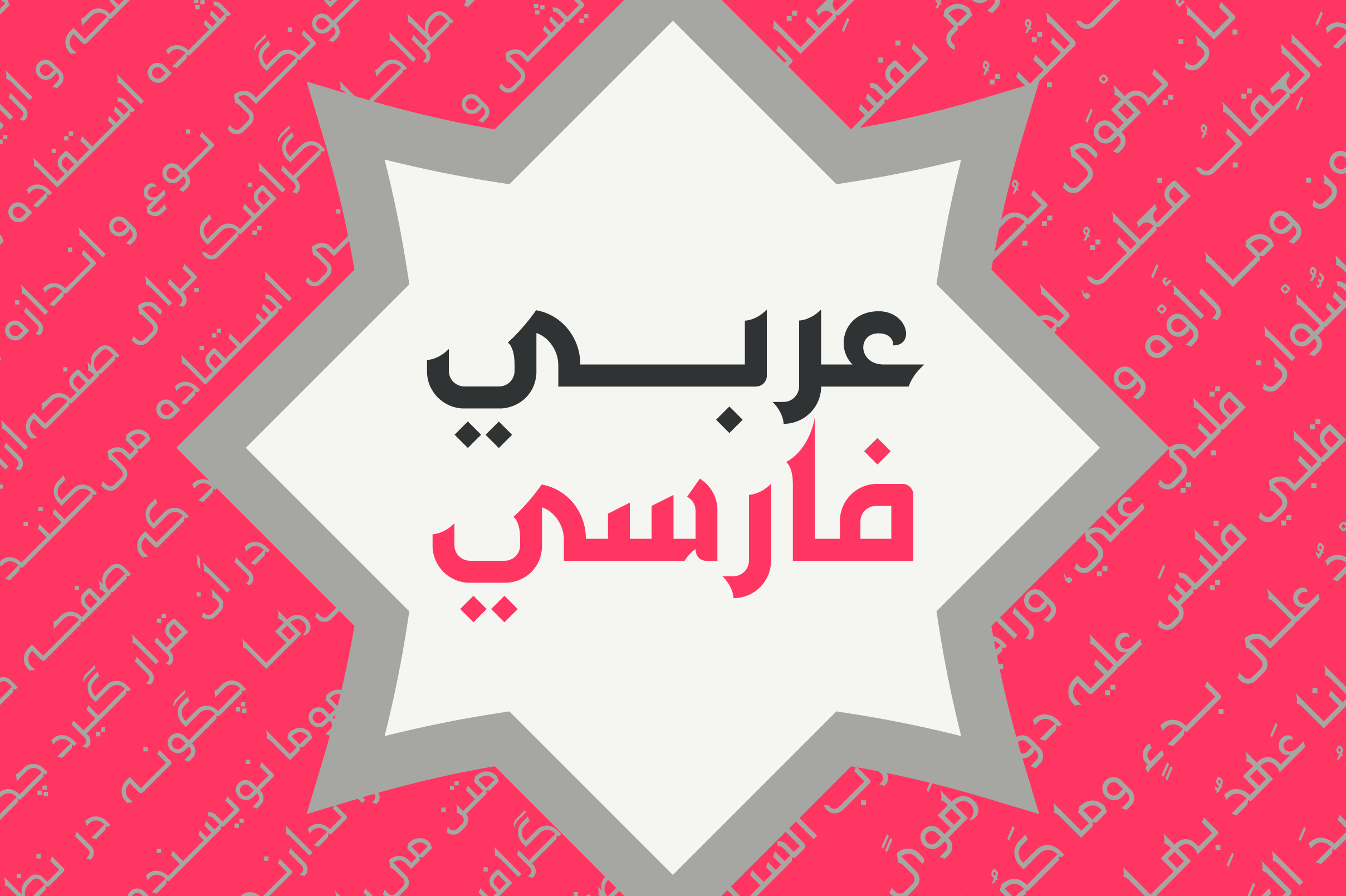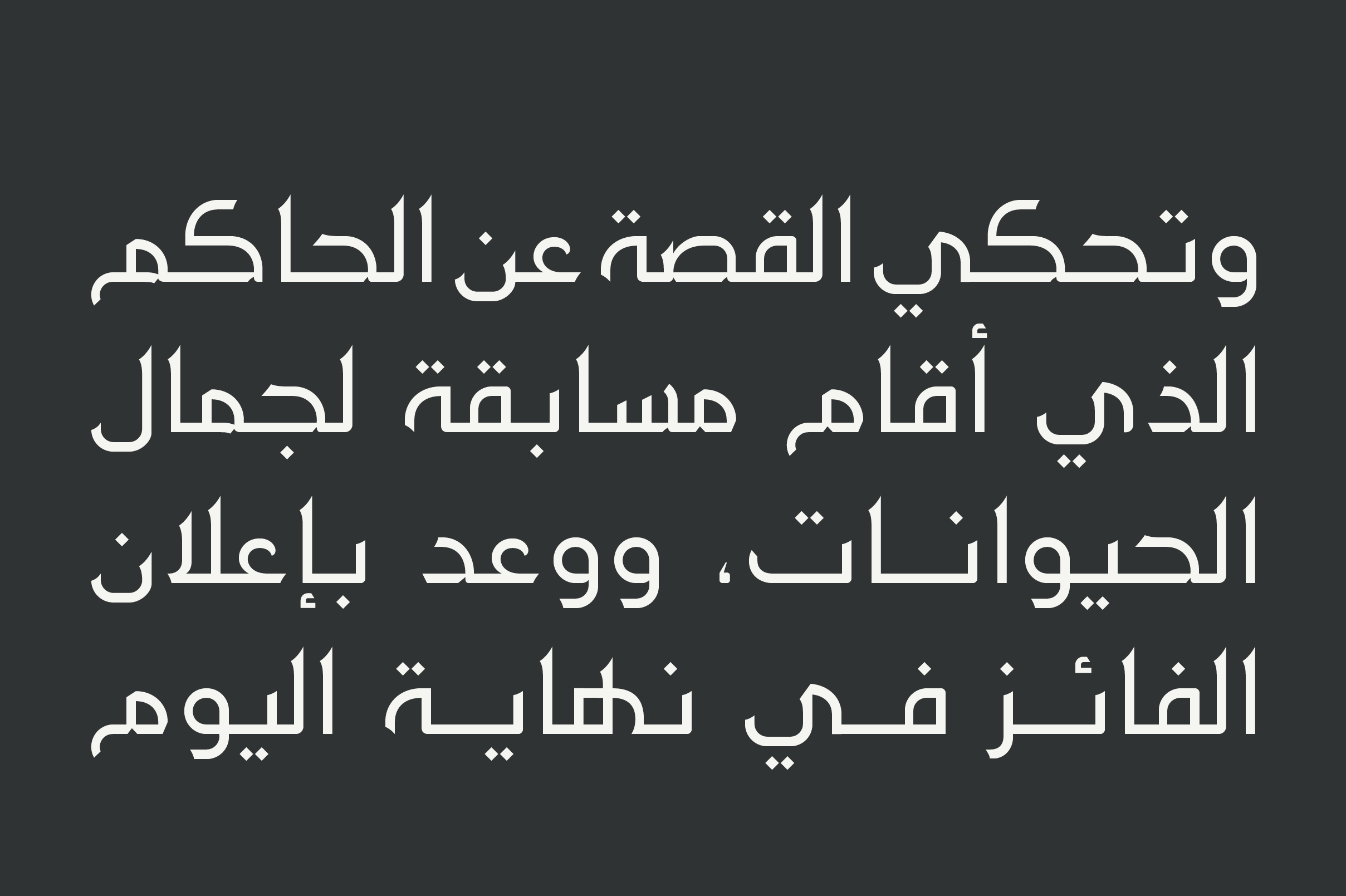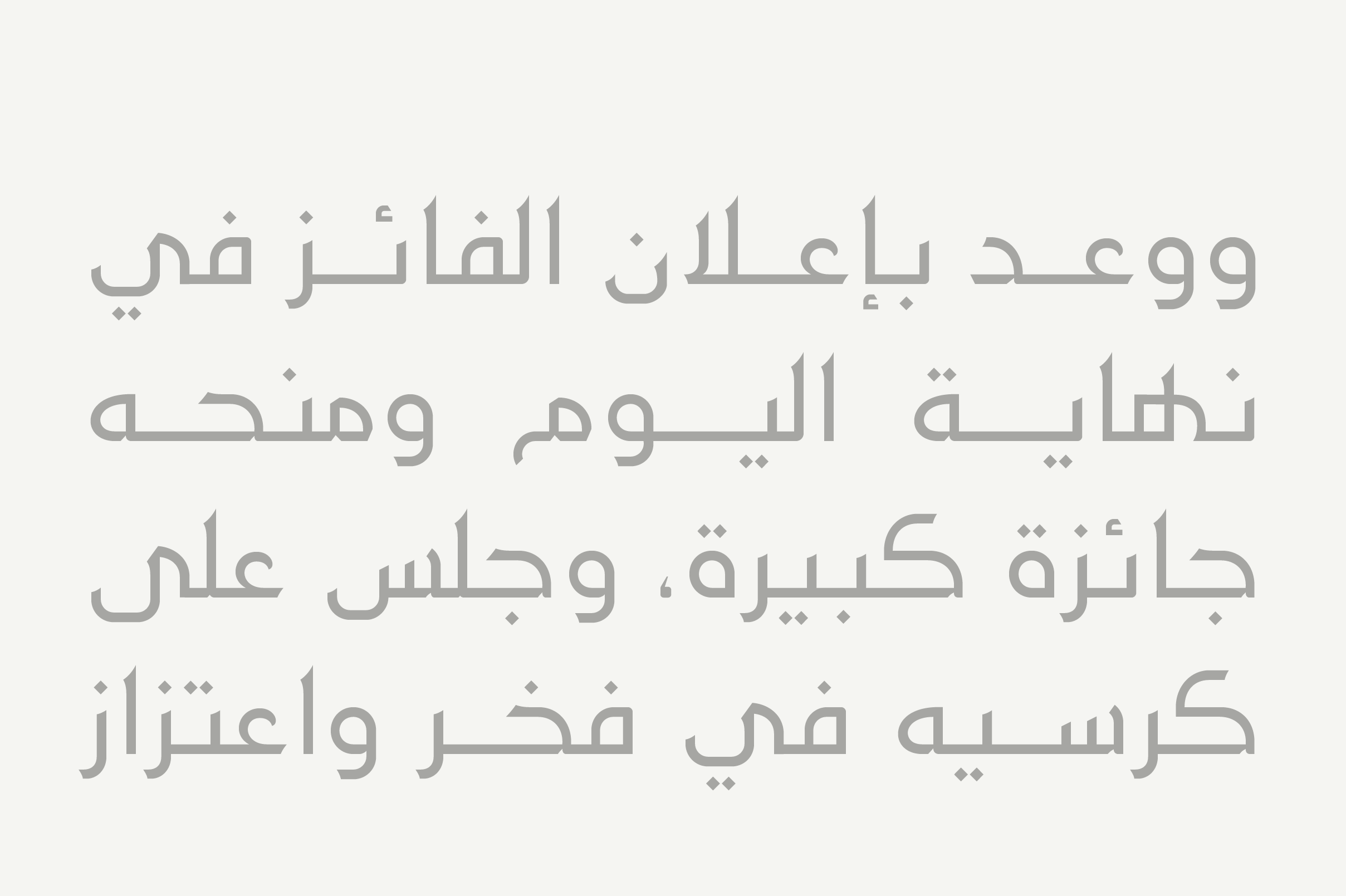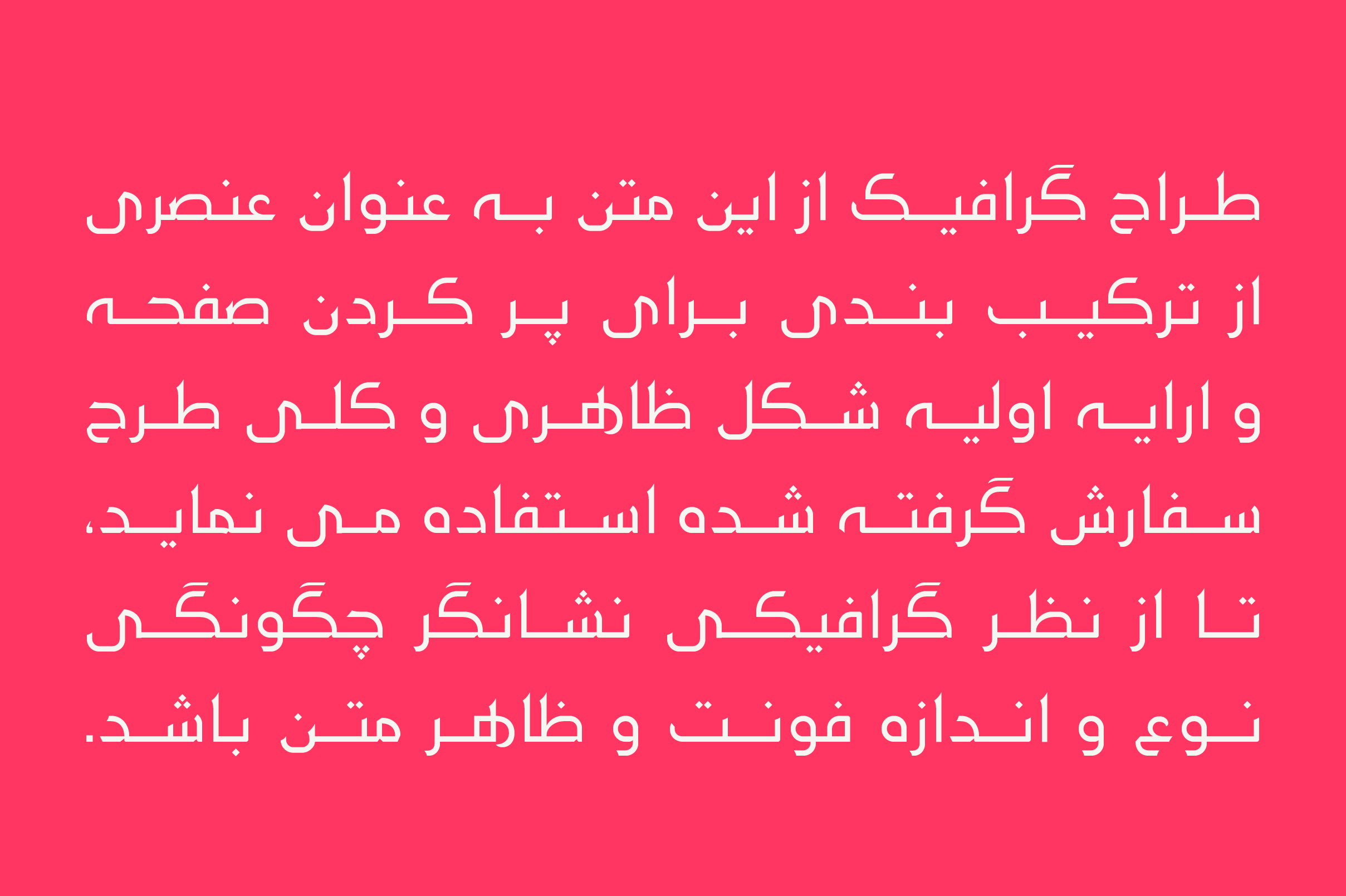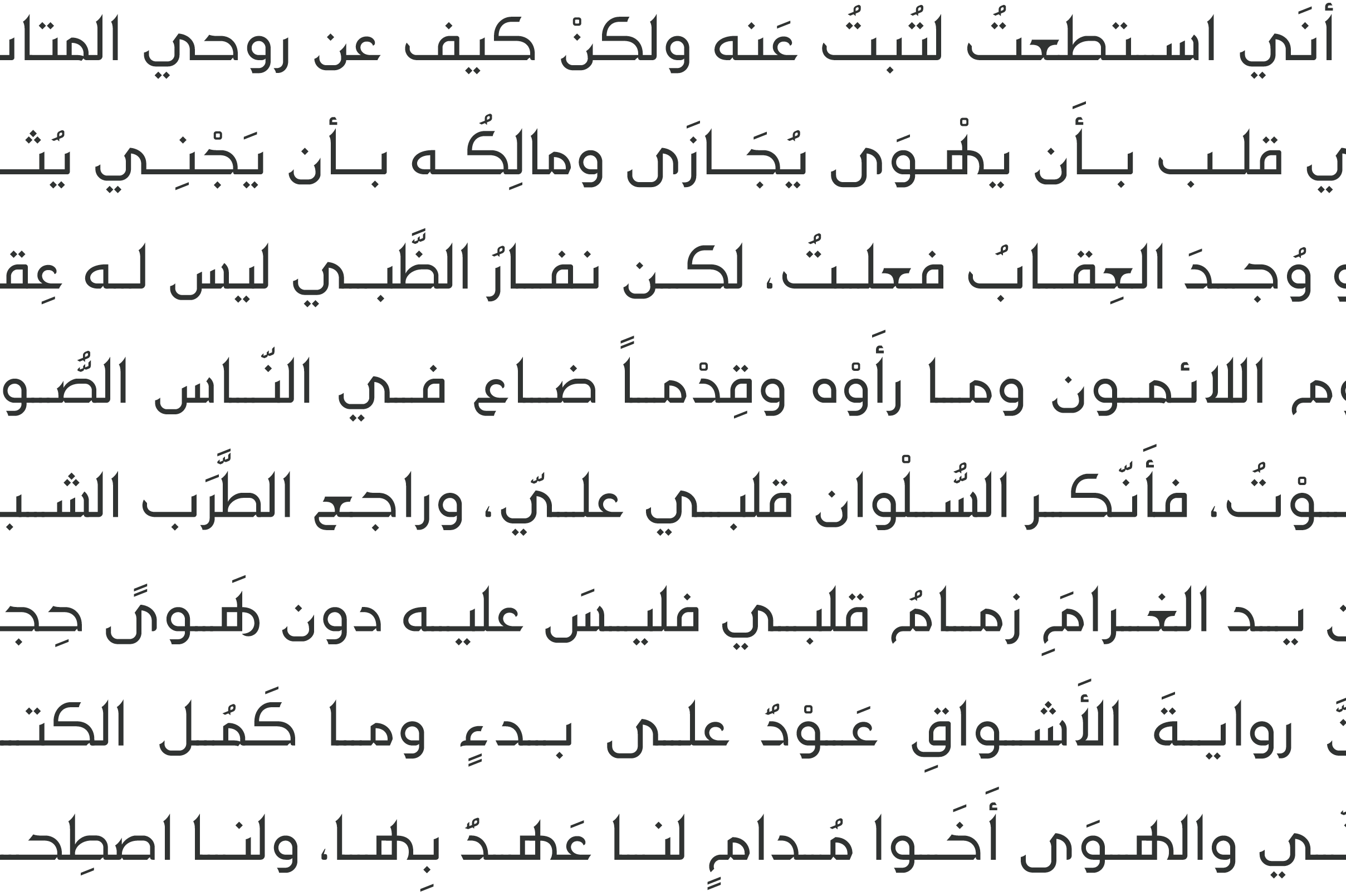
Introduction to Maharah – Arabic Font Font
Fonts play a crucial role in design, and the Maharah – Arabic Font font is a typeface that brings both character and versatility to any project. Whether you’re working on a branding project, a website, or a print design, the Maharah – Arabic Font font offers a unique style that can elevate your work.
| 📌 Font Name | Maharah – Arabic Font |
| 👤 Author | Mostafa El Abasiry |
Maharah is an Arabic typeface that combines authenticity with elegance and modernity.
The word Maharah is the Arabic for “skill ” The font suits both web design and print and it comes in two weights; regular and bold.
Key Features of Maharah – Arabic Font Font
Why Choose Maharah – Arabic Font Font?
The Maharah – Arabic Font font is more than just a typeface – it’s a design tool that helps you communicate your message with style and clarity. Its unique character set and versatile design make it suitable for a wide range of applications, from elegant invitations to bold headlines.
With its carefully crafted letterforms and balanced proportions, the Maharah – Arabic Font font ensures readability and visual appeal across all mediums.
What makes Maharah – Arabic Font font special?
The Maharah – Arabic Font font stands out with its unique design, exceptional readability, and versatility across various design applications.